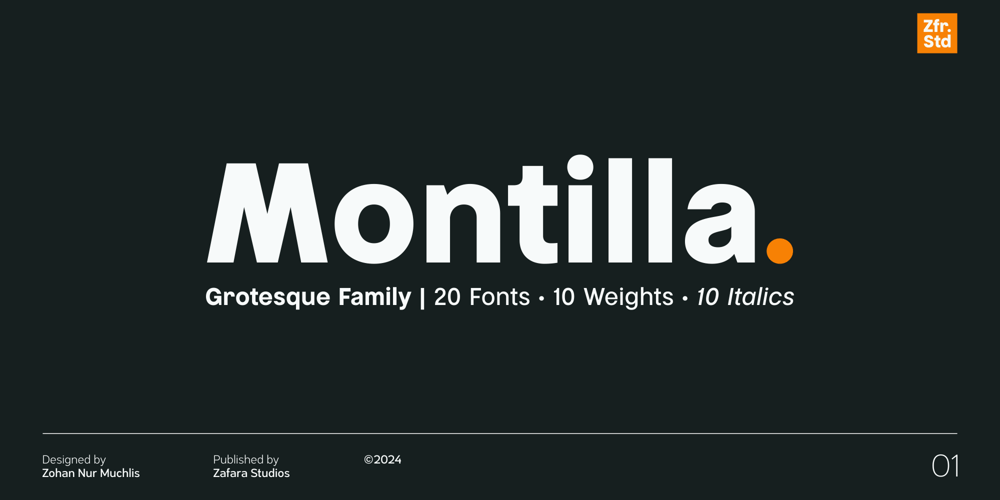
Montilla
Montilla font
Montilla Font Family was designed by Zohan Nur Muchlis and published by Zafara Studios. Montilla contains 20 styles and family package options. Montilla is a versatile typeface designed clean and geometric with minimal decoration, making it easy to read and suitable for a variety of applications. It has a neutral and unobtrusive design, making it ideal for professionals and contemporary where clarity and efficiency are key. Montilla is ideal for corporate branding, editorial design, user interfaces, advertising, signage, product packaging, educational materials, and creative projects, among others. With 10 weights from thin to heavy, Montilla offers a wide typographic spectrum, allowing for customized emphasis and hierarchy in body text accompanied by 10 matching italics.The details:389 glyphs: uppercase, lowercase, multilingual, numbers, punctuation, superscript, subscripts, ordinals, fractions, stylistic alternates, arrows, currency10 weights: thin, extralight, light, regular, medium, semibold, bold, extrabold, black, heavy10 italics25 languages: Afrikaans, Albanian, Basque, Catalan, Danish, Dutch, English, Estonian, Faroese, Filipino, Finnish, French, Galician, German, Icelandic, Indonesian, Irish, Italian, Malay, Norwegian Bokmål, Portuguese, Spanish, Swahili, Swedish, Zulu